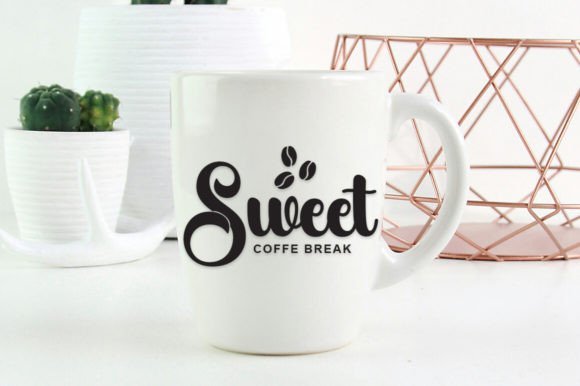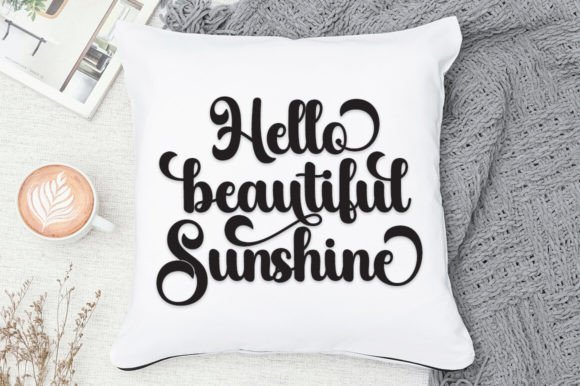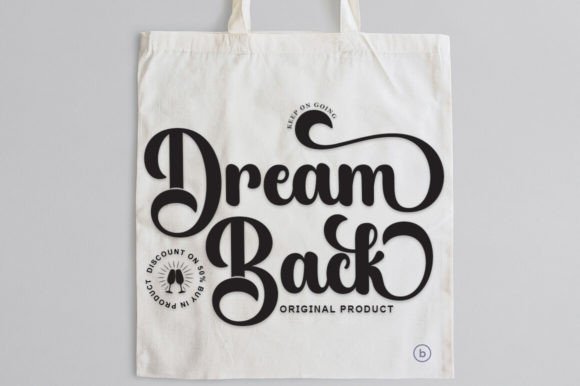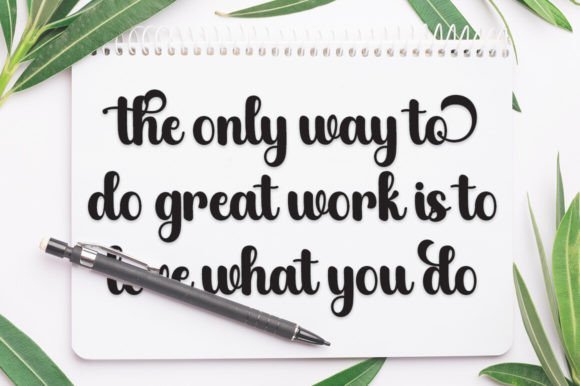
Black Sample feels equally charming and elegant. This stunning script font is a stylish homage to classic calligraphy. It will elevate any design project to the highest level, be it branding, titles, wedding designs, invitations, signs, logos, labels and more!